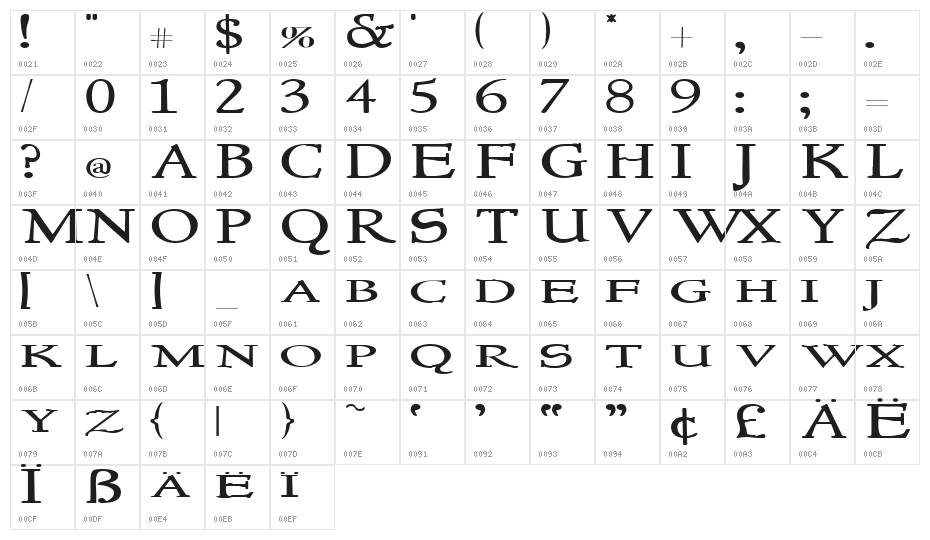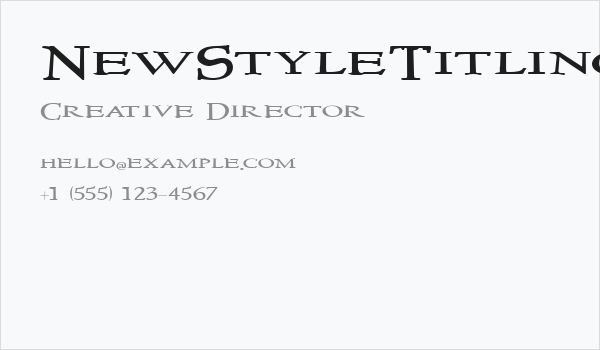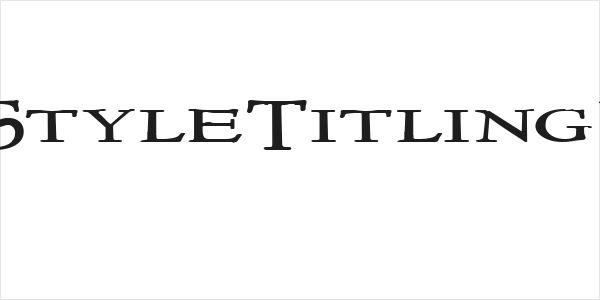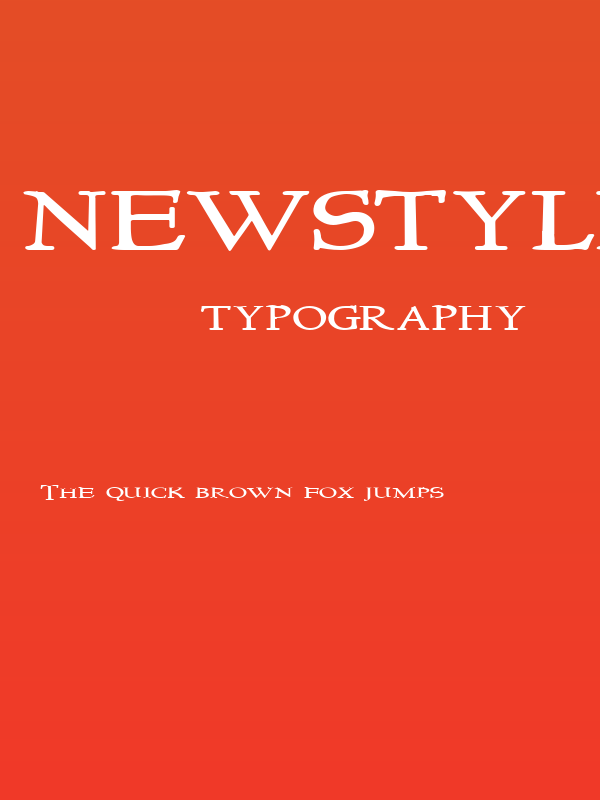
NewStyleTitlingWide Font
NewStyleTitlingWide Description
This font features a modern and sleek design with wide, evenly spaced characters that provide a clean and sophisticated look. The uppercase letters are bold and commanding, making them ideal for attention-grabbing headlines. The lowercase letters maintain a consistent style, ensuring readability and a cohesive appearance. The numerals are clear and straightforward, complementing the overall design. Special characters are distinct and well-integrated, enhancing the font's versatility. This font's wide character width and balanced proportions make it suitable for a variety of design projects.
| Proposed Projects | Ideal for branding, advertising, and editorial design projects. |